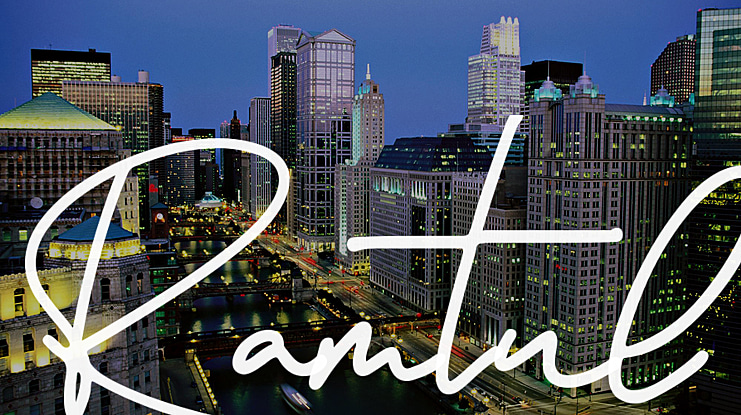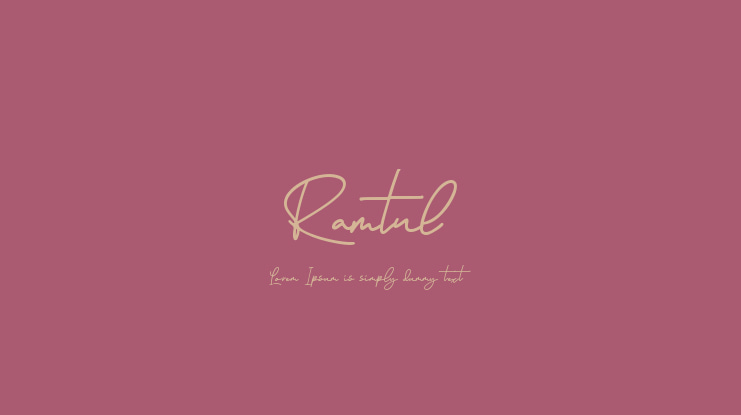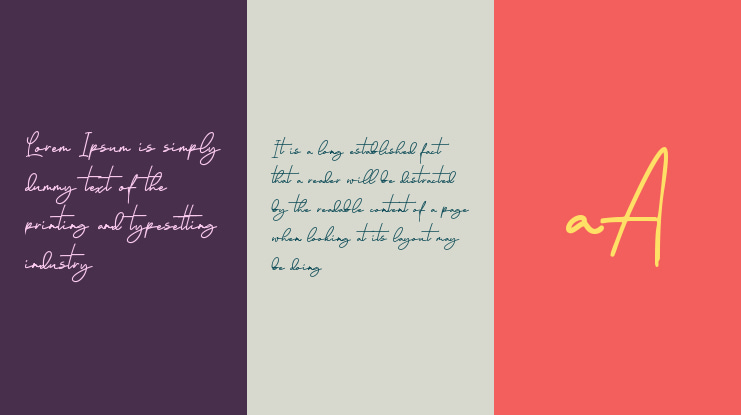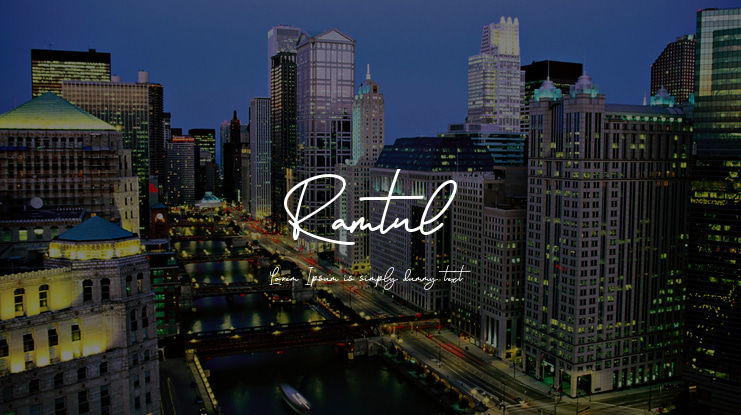
Ramtul Font
This is font free for PERSONAL USE ONLY , but this FONT is Very good unique for such Logo , T-shirt , Card Name , Banner , Quote , Food Product , Packaging , Crafting , etc .